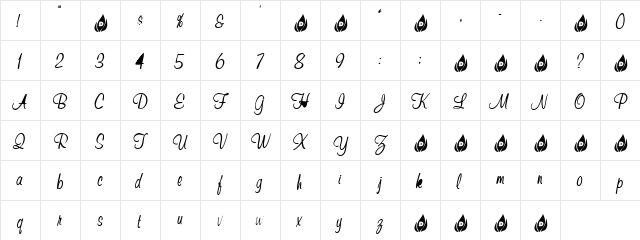
TiniestDancer Regular Font Preview
TiniestDancer Regular
Design Context for TiniestDancer Typeface
TiniestDancer is a composed and adaptable typeface that performs quietly and consistently across a wide range of design contexts.